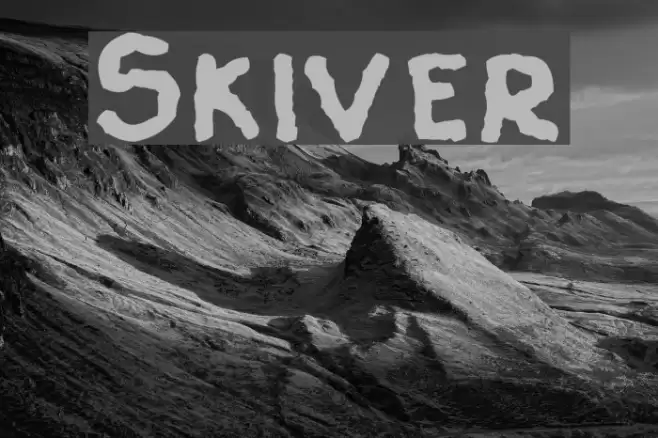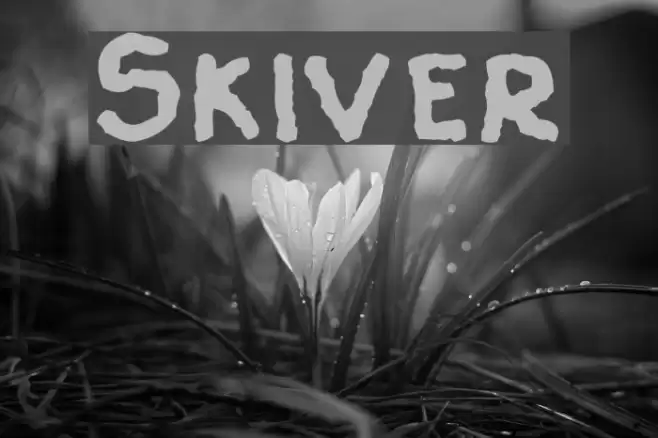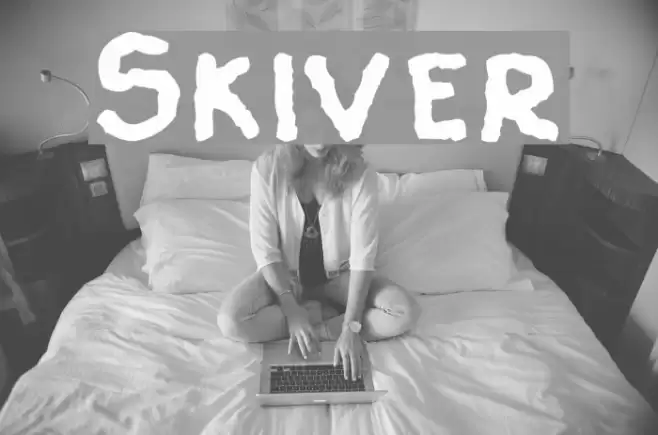
Skiver Font
Skiver Description
This font features a bold, hand-drawn style with a playful and organic appearance. The characters are irregular and have a rough texture, giving them a unique and artistic feel. The strokes are thick and uneven, contributing to a casual and informal look. The font maintains a consistent weight throughout, with rounded edges and a slightly distorted form that adds to its charm. It is well-suited for creative projects that require a touch of whimsy and individuality.
A bold, hand-drawn font with a playful and organic style from Uncategorized fonts.